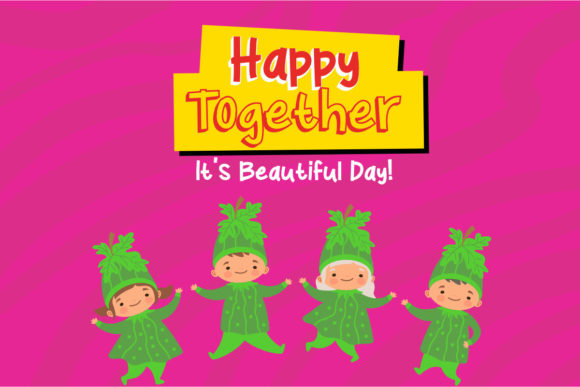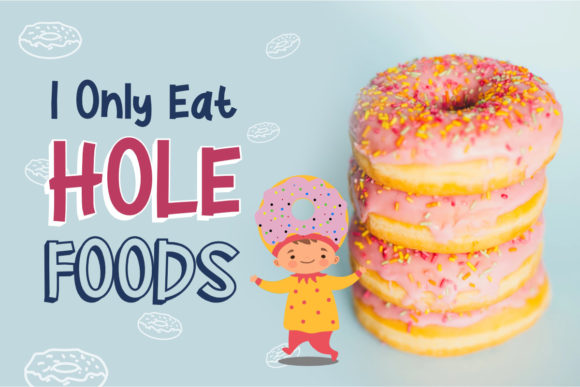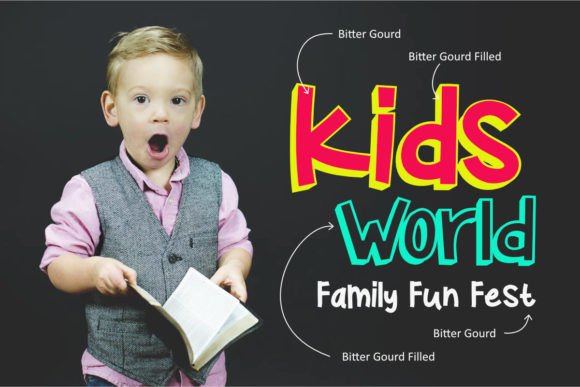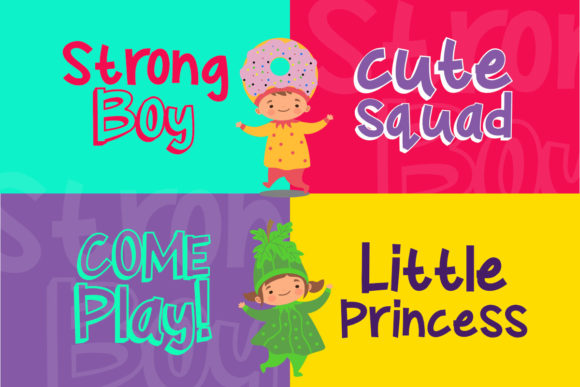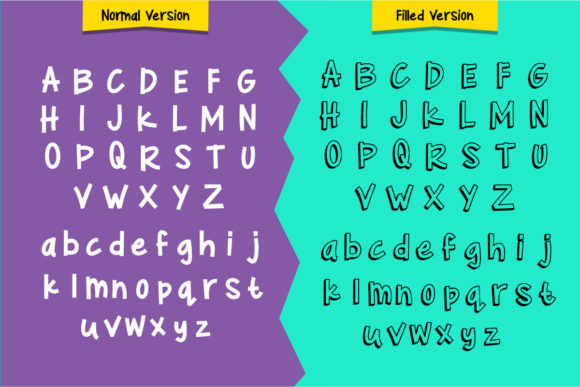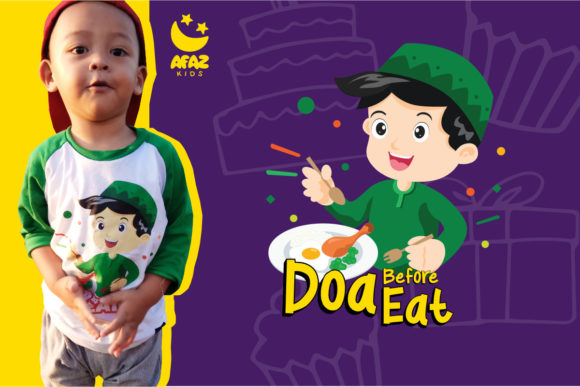
The Bitter Gourd Font: A Fun and Friendly Display Font for Your Crafts
I’ll never forget the time I was working on a comic book-style illustration for a client’s project, and I just couldn’t find the right font to bring it all together. The project required a playful, yet bold display font that would capture the essence of the comic book genre. That’s when I stumbled upon the Bitter Gourd font, and it instantly became the perfect fit. In this article, I’ll share my experience with this wonderful font, and explore its features, uses, and alternatives.
An Honest Review of Bitter Gourd Font
The Bitter Gourd font has quickly become one of my go-to fonts for display purposes. Here’s what I love about it:
- ✨ Simple yet fun design that’s perfect for crafts and comic book-style projects
- ✅ Highly legible, even at smaller sizes
- 💥 Great for headlines, titles, and short paragraphs of text
- 🎨 Versatile and can be used for a wide range of creative projects
However, like any font, Bitter Gourd has its quirks. Here are a few things to keep in mind:
- 🤔 May not be the best choice for body text or long paragraphs, as it can be a bit too playful
- ⚠️ Limited language support, so it’s best used for English or similar languages
One of the best things about Bitter Gourd font is its support for OpenType features and glyphs. These features allow you to add more personality and variety to your text, making it perfect for creative projects. Some of the OpenType features you can explore in Bitter Gourd font include:
- Ligatures: These are special character combinations that can be used to add a touch of elegance to your text.
- Stylistic alternates: These are alternative character designs that can be used to add more personality to your text.
- Glyphs: These are special characters that can be used to add more visual interest to your text.
Backstory: The Inspiration Behind Bitter Gourd Font
The Bitter Gourd font was inspired by the classic comic books of the past. The designer wanted to create a font that would capture the playful, yet bold spirit of these comics, while also being highly legible and versatile. The result is a font that’s perfect for display purposes, and can add a touch of personality to any craft or creative project.
| Font Name | Bitter Gourd Font |
| Author | rudhisasmito |
| What is Bitter Gourd font? | Bitter Gourd font is a simple, yet fun display font inspired by comics. |
| What is Bitter Gourd font best used for? | Bitter Gourd font is best used for display purposes, such as headlines, titles, and short paragraphs of text. |
| Is Bitter Gourd font available in multiple languages? | No, Bitter Gourd font has limited language support. It’s best used for English or similar languages. |